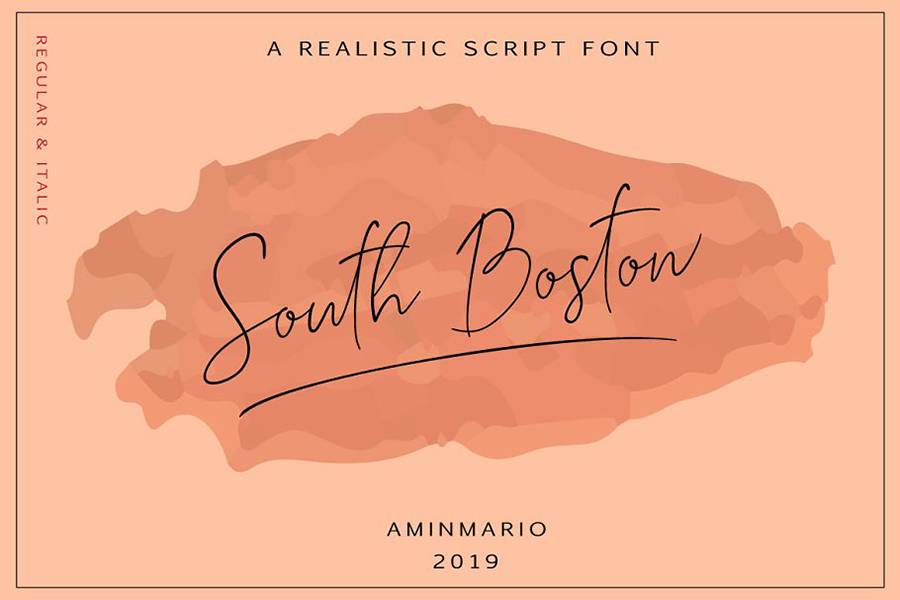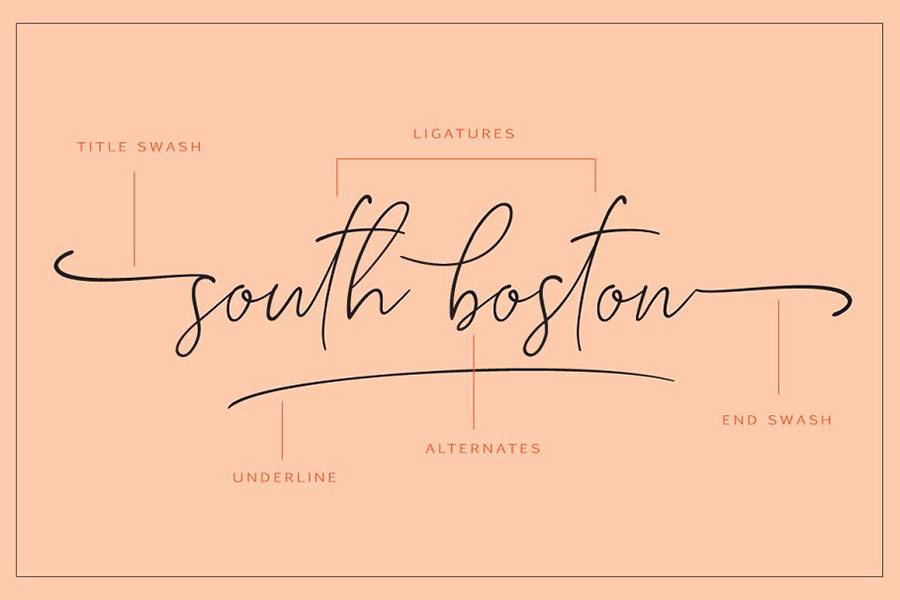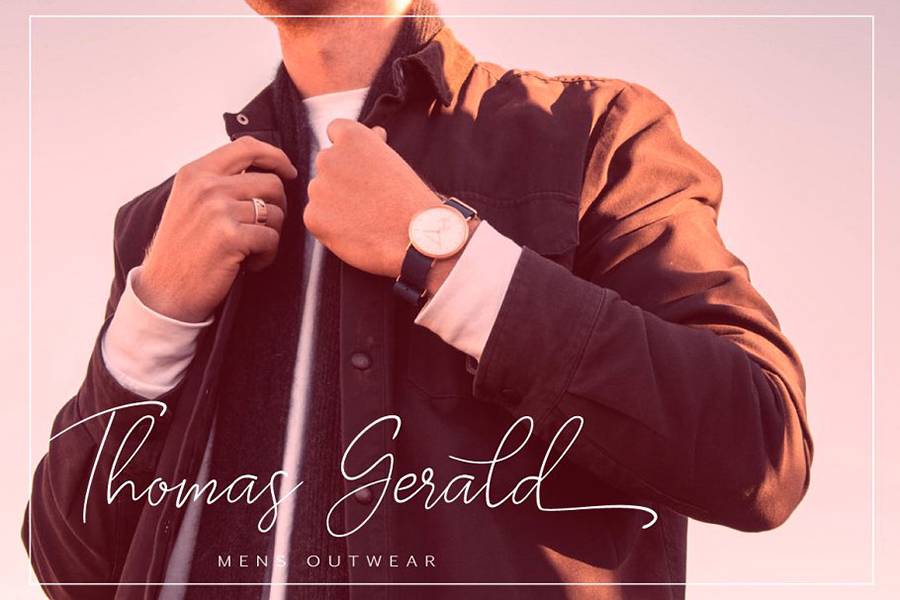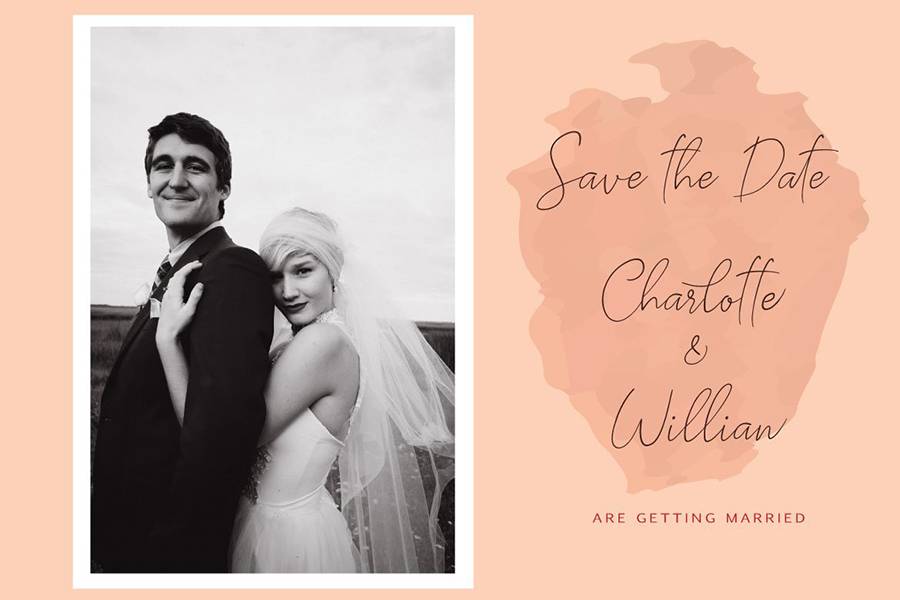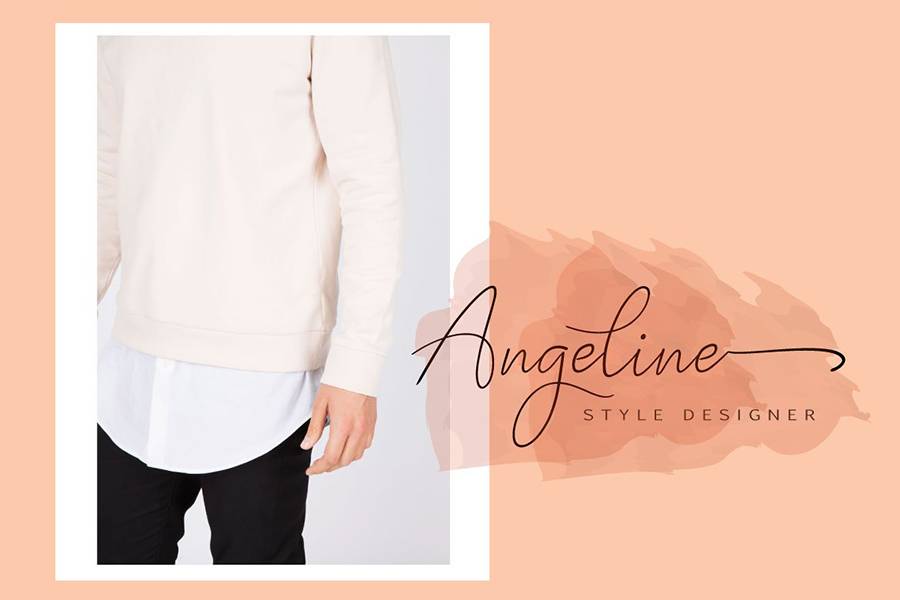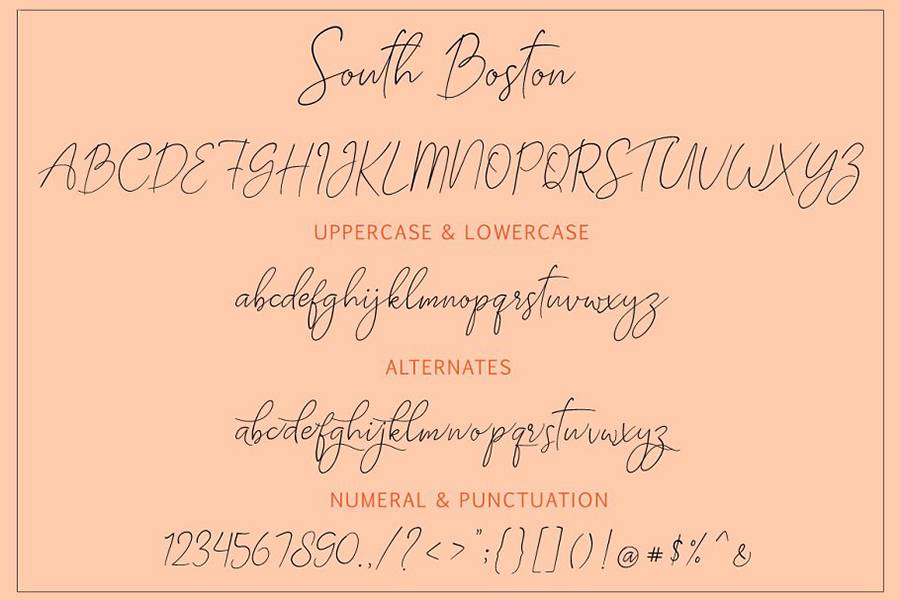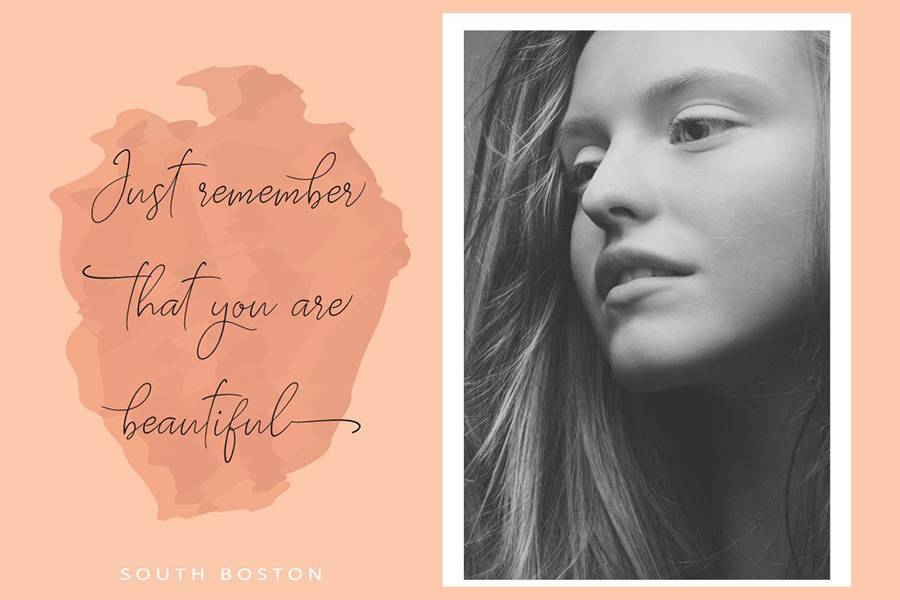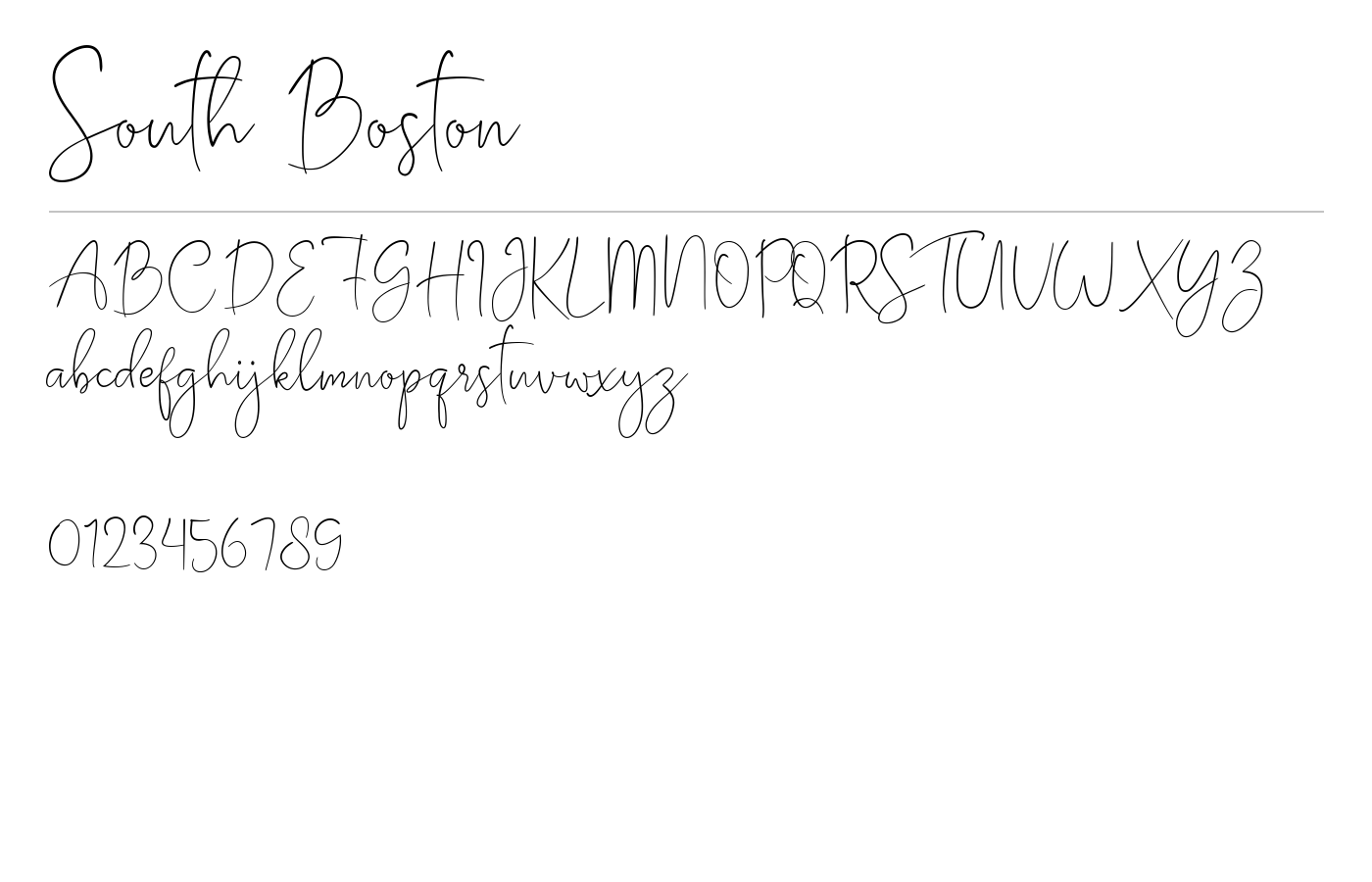
South Boston Script is a delicate, elegant handwritten script font with a light weight and tall, slender letterforms. Its thin strokes and flowing lines create a graceful, sophisticated feel, perfect for stylish branding, invitations, or logos seeking a personal, refined touch. This font works best in decorative or headline use where its unique charm and airy character can shine.
South Boston Script Demo
About South Boston Script Demo
| Font family | South Boston Script Demo |
| Release date | 2019-03-23 |
| Designer | aminmario |